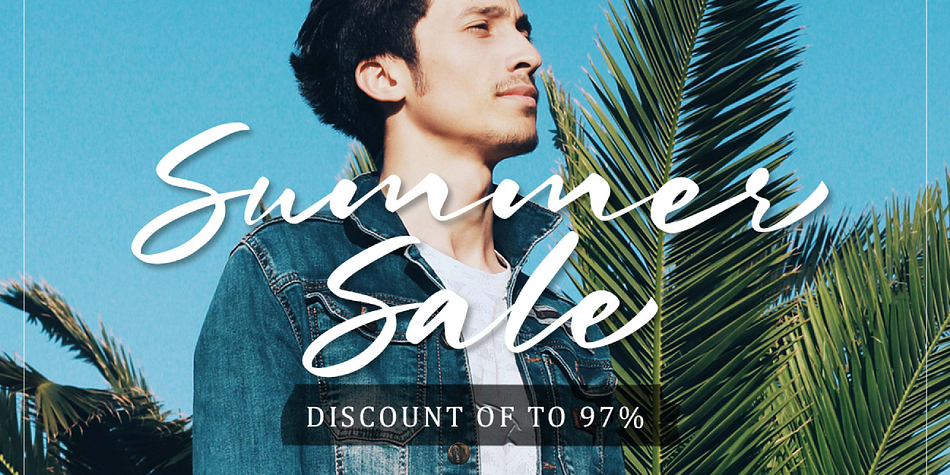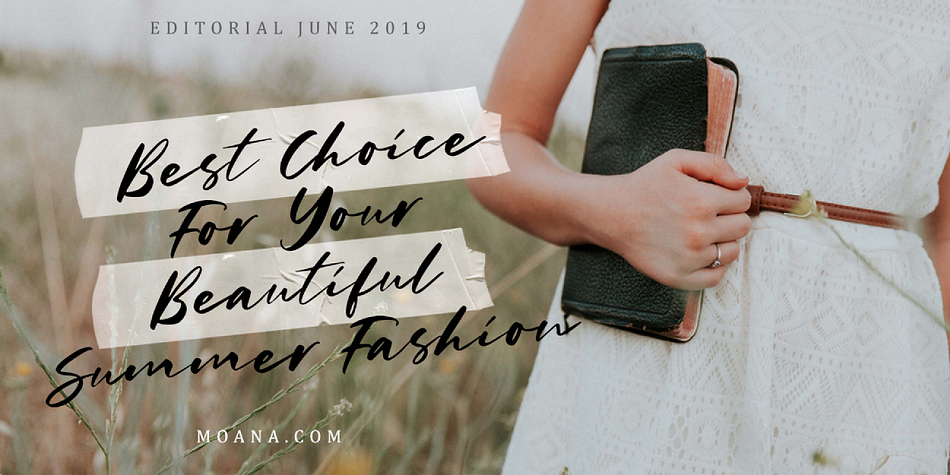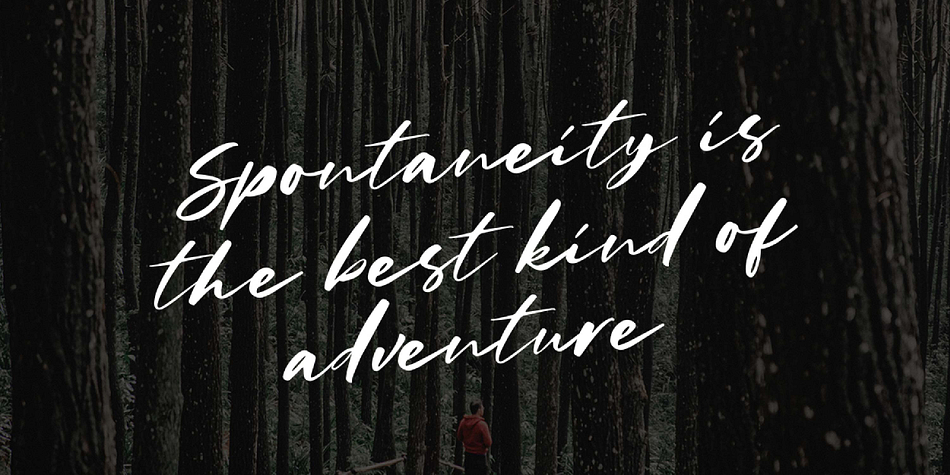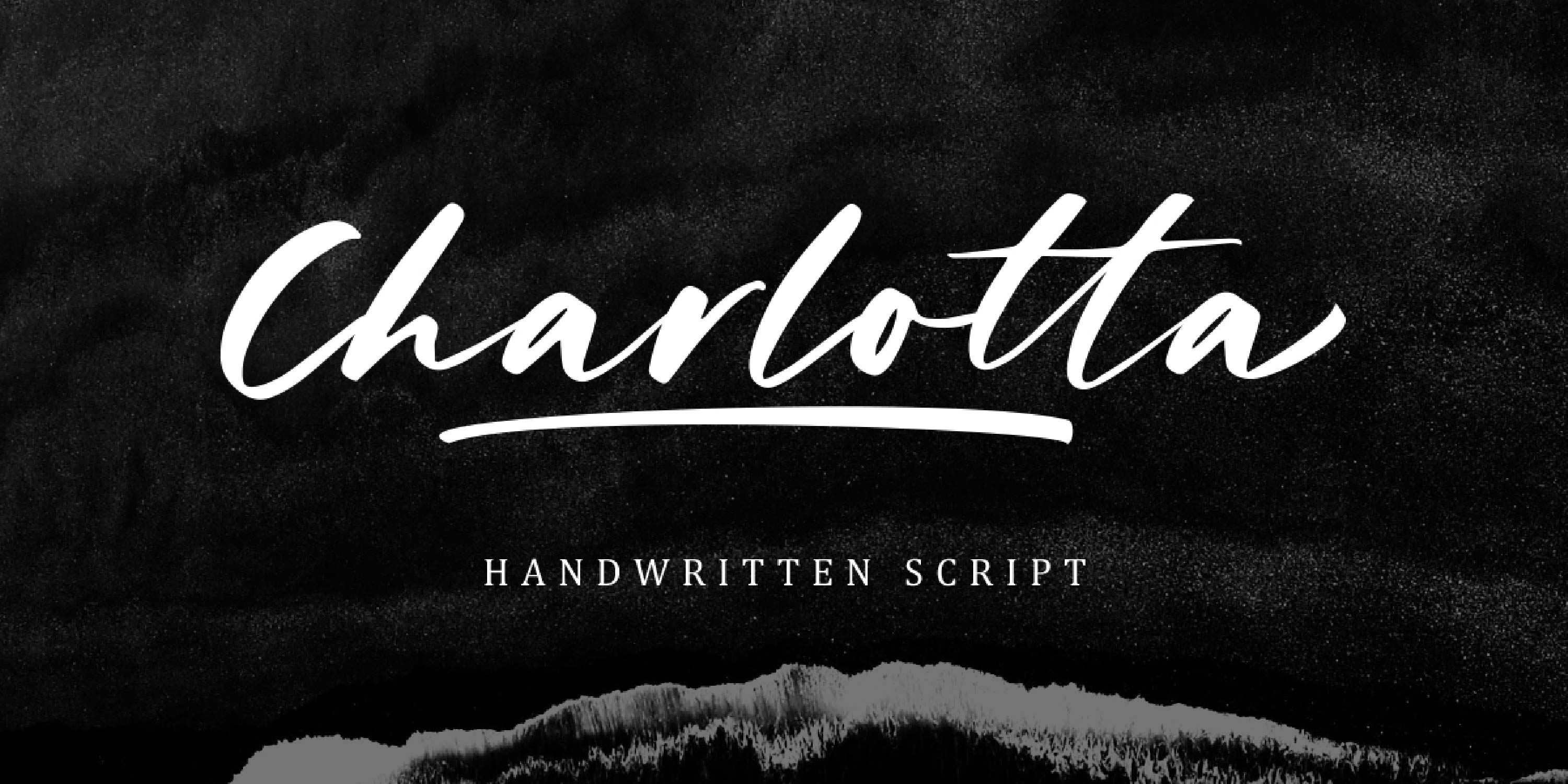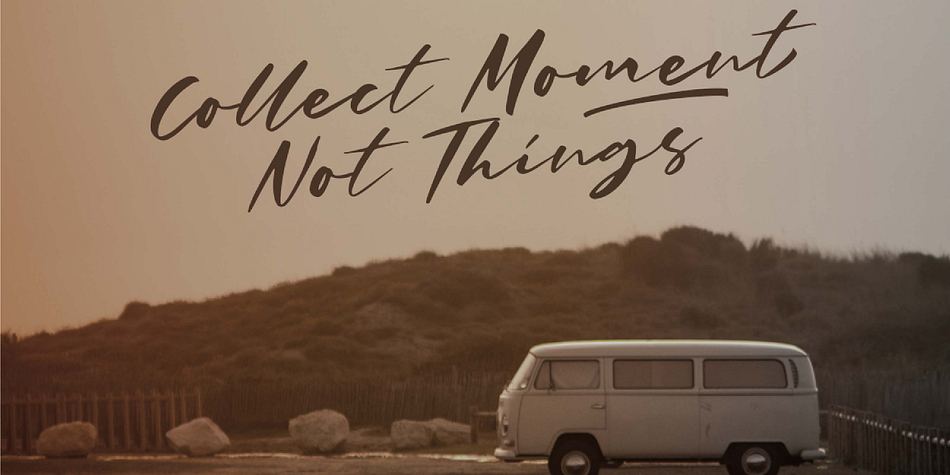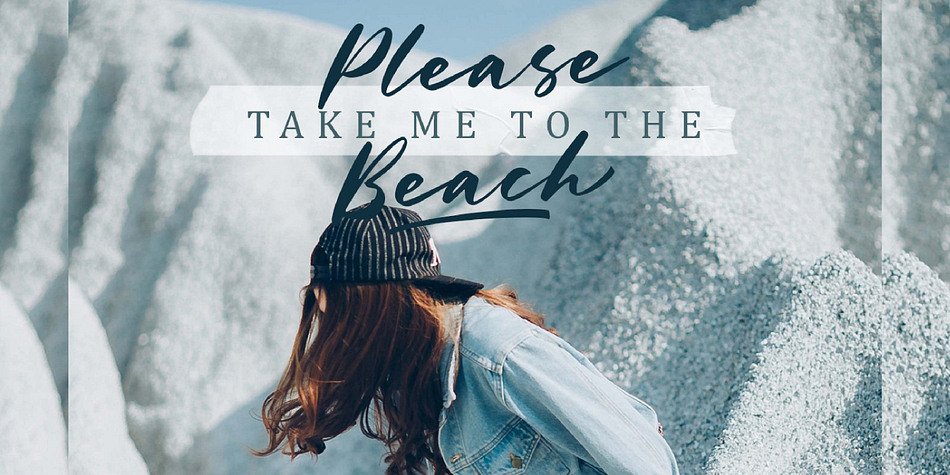
Designed by Hendry Juanda, Charlotta is a brush display, modern calligraphy and script font published by Letterhend Studio.
Charlotta Script is a natural handwritten made script which is suitable for you who needs a typeface for headline, logotype, apparel, invitation, branding, packaging, advertising etc. This typeface is comes in uppercase, lowercase, punctuations, symbols & numerals, stylistic set alternate, ligatures, etc also support multilingual and already PUA encoded.